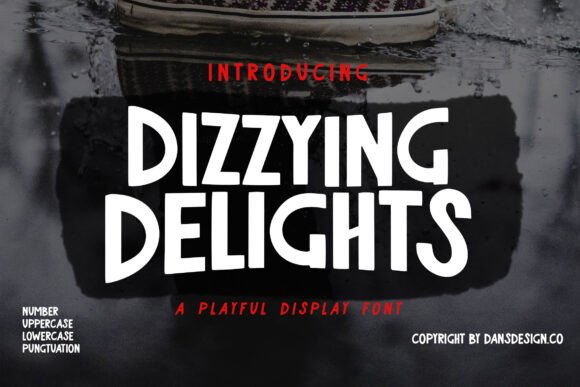
Dizzying Delights Font: Add a Touch of Whimsy to Your Designs
Are you tired of using the same old fonts in your designs? Look no further than Dizzying Delights, a quirky and playful display font that’s sure to turn heads. With its tall, energetic strokes and subtle tilt, this font exudes a fun and rebellious spirit that’s perfect for a variety of creative projects.
The Perfect Font for Streetwear Branding and More
Dizzying Delights is an excellent choice for designers looking to create bold and eye-catching designs. Its unique blend of playfulness and attitude makes it an ideal fit for streetwear branding, music event posters, and other applications where a lively and energetic vibe is desired. Whether you’re designing a logo, creating a social media graphic, or crafting a promotional poster, Dizzying Delights is sure to make your work stand out.
Key Features of Dizzying Delights Font
- Tall, energetic strokes: Dizzying Delights features tall, slender strokes that give it a dynamic and lively feel.
- Subtle tilt: The font’s subtle tilt adds a touch of playfulness and whimsy, making it perfect for designs that require a bit of attitude.
- Quirky and playful: Dizzying Delights is a truly unique font that’s sure to add a touch of personality to your designs.
- Display font: This font is designed specifically for display purposes, making it perfect for headlines, titles, and other applications where a bold font is needed.
Creative Applications for Dizzying Delights Font
Dizzying Delights is a versatile font that can be used in a variety of creative applications, including:
- Streetwear branding: Add a touch of edginess to your streetwear brand with Dizzying Delights.
- Music event posters: Create eye-catching posters for music events, concerts, and festivals with this bold and energetic font.
- Social media graphics: Use Dizzying Delights to create bold and engaging social media graphics that are sure to grab attention.
- Logos and branding: Create a unique and memorable logo for your business or brand with Dizzying Delights.
- Advertising and marketing materials: Use this font to create bold and eye-catching ads, flyers, and other marketing materials.
Why Choose Dizzying Delights Font?
With so many fonts to choose from, why should you choose Dizzying Delights? Here are just a few reasons:
- Unique and distinctive: Dizzying Delights is a truly unique font that’s sure to set your designs apart from the crowd.
- High-quality design: This font is designed with high-quality craftsmanship in mind, ensuring that it looks great in any application.
- Versatile: This font can be used in a wide range of creative applications, making it a great addition to any designer’s toolkit.
If you’re looking for a font that will add a touch of whimsy and playfulness to your designs, look no further than Dizzying Delights. With its tall, energetic strokes and subtle tilt, this font is sure to turn heads and make your designs stand out. Whether you’re a designer, craft, or simply someone who appreciates great typography, Dizzying Delights is a must-have font that’s sure to delight.